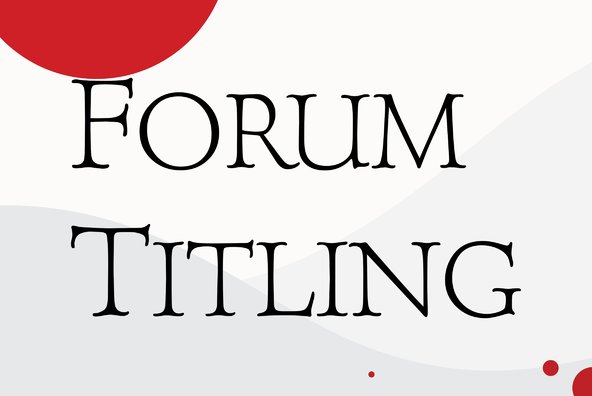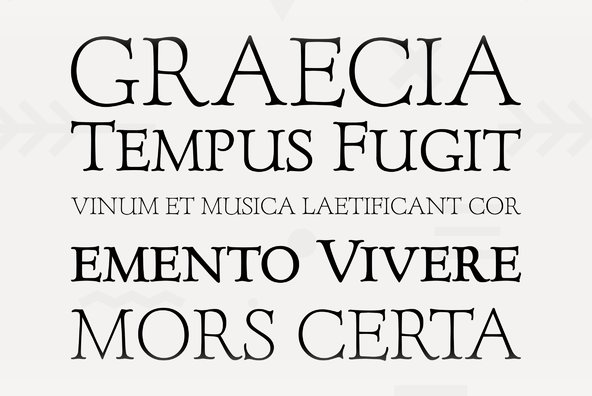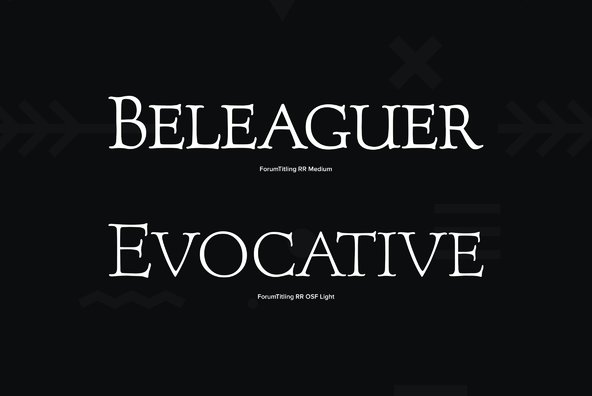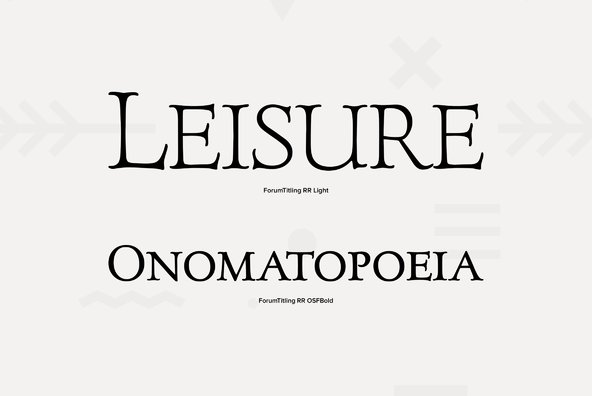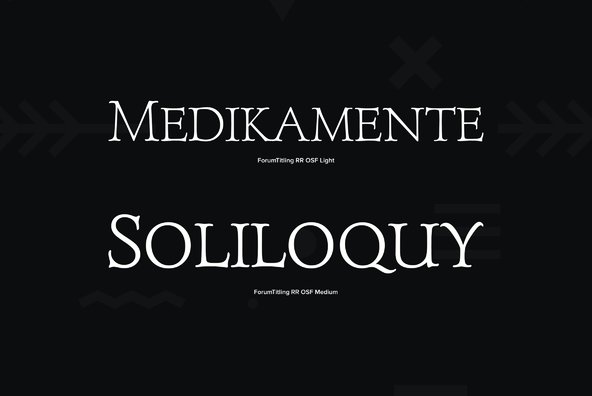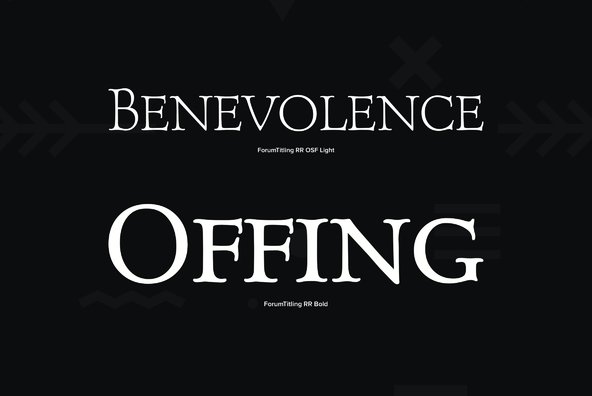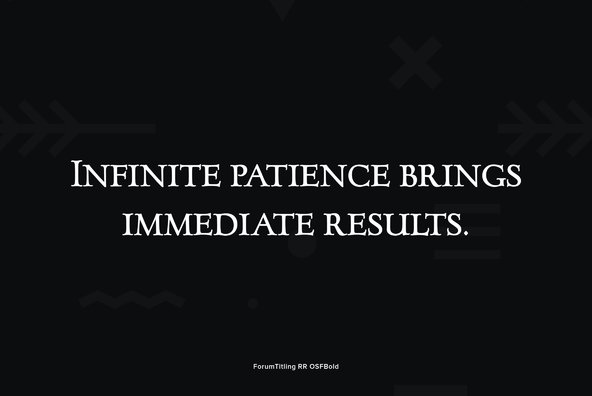
Forum Titling
Designed by A. Pat Hickson. An original design based on the Frederick Goudy design first shown in 1912. Originally a caps only design in one weight. Produced as a foundry face by Lanston Monotype 1924.